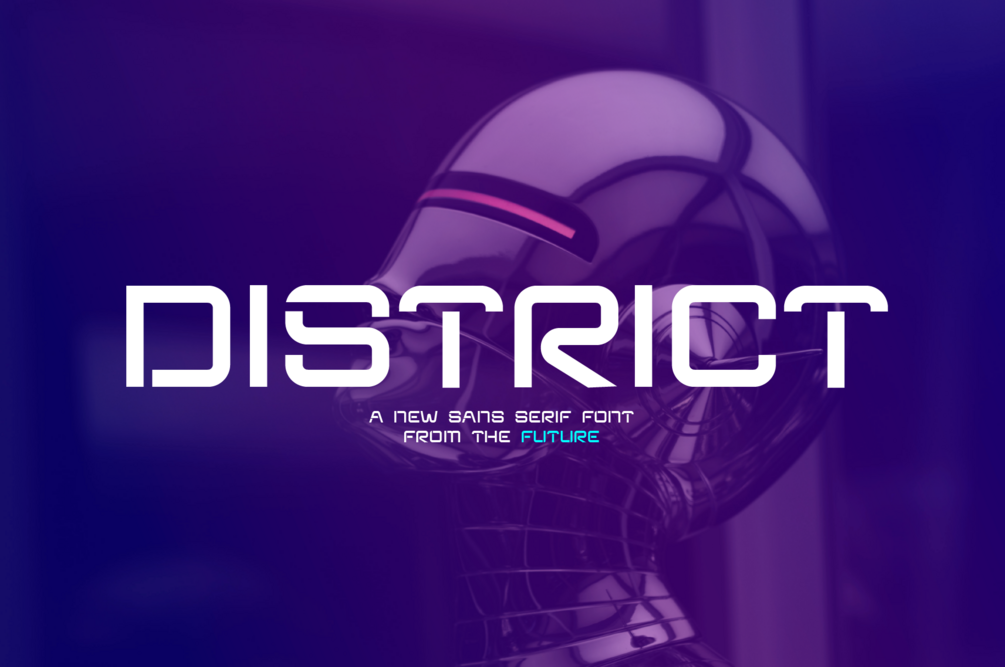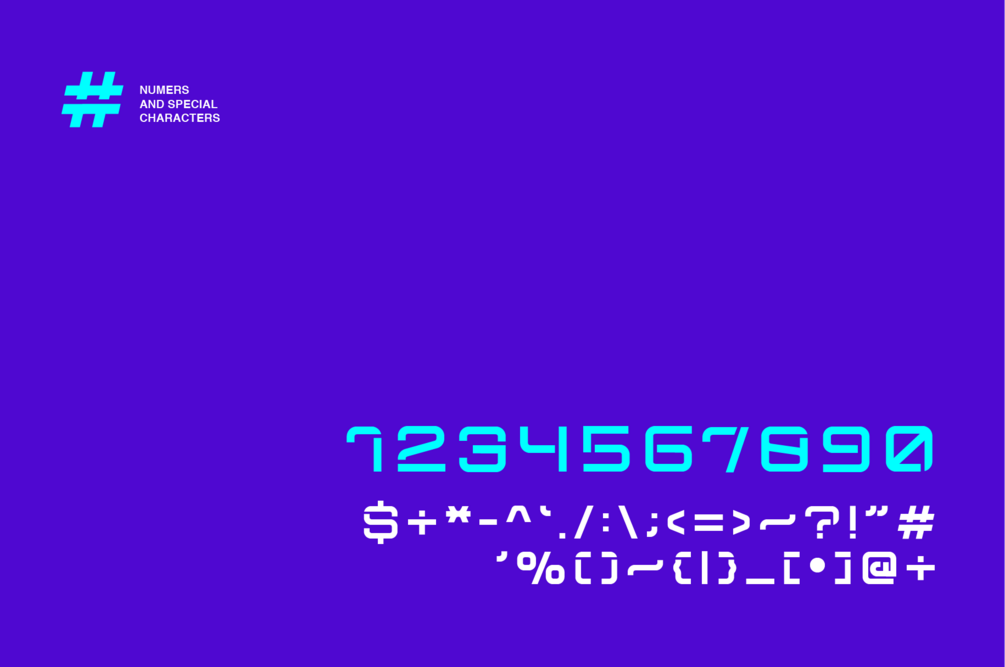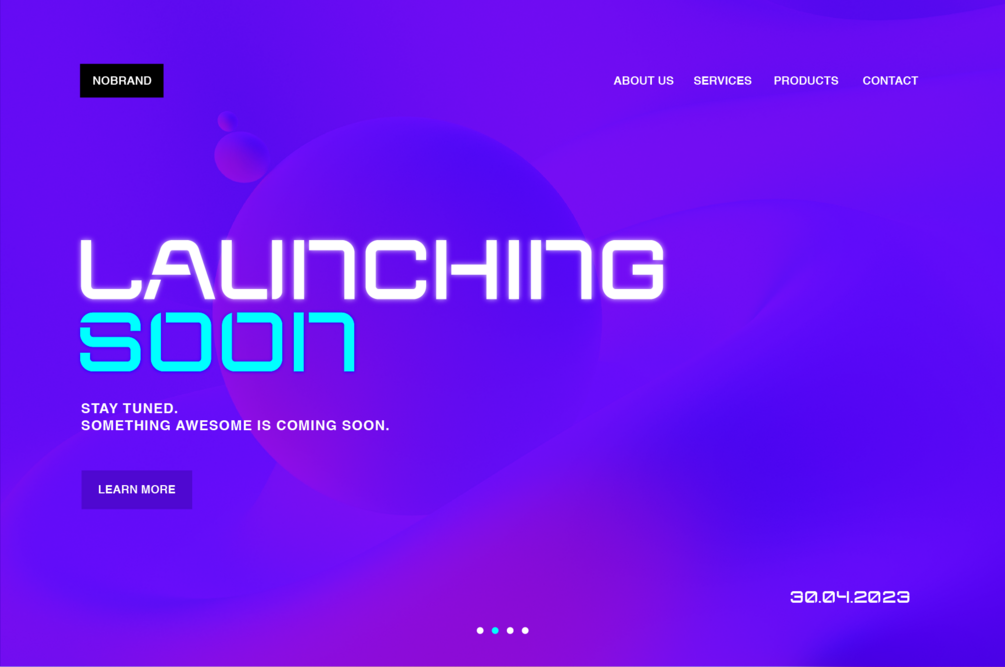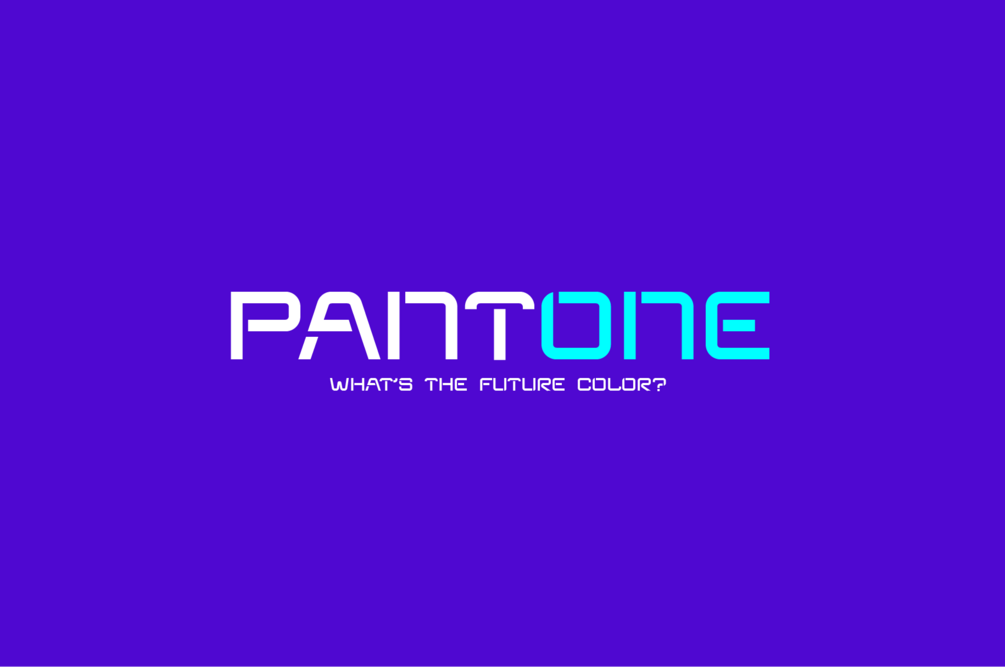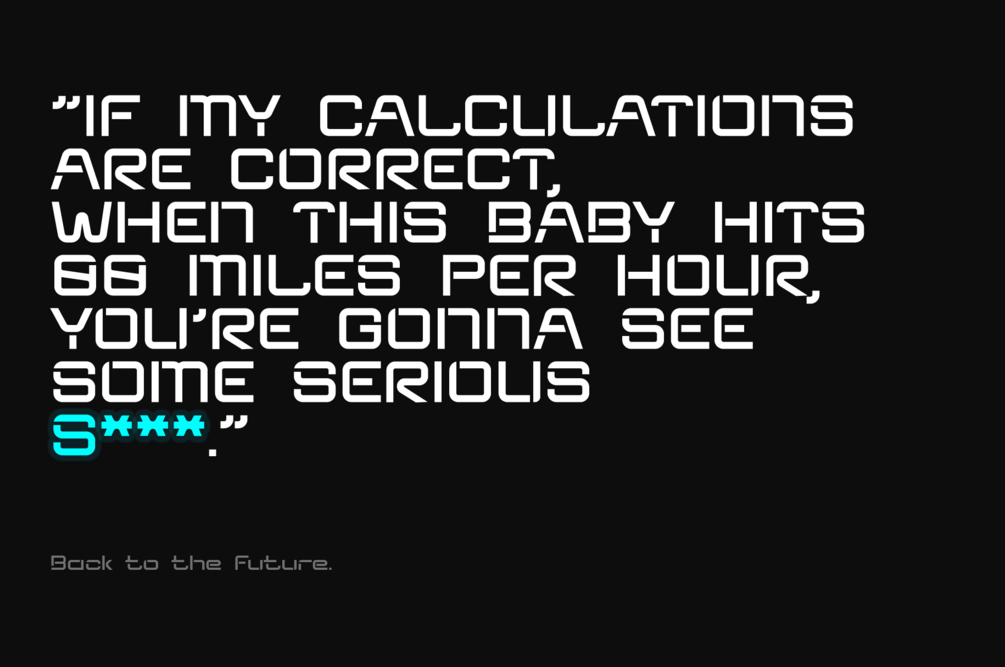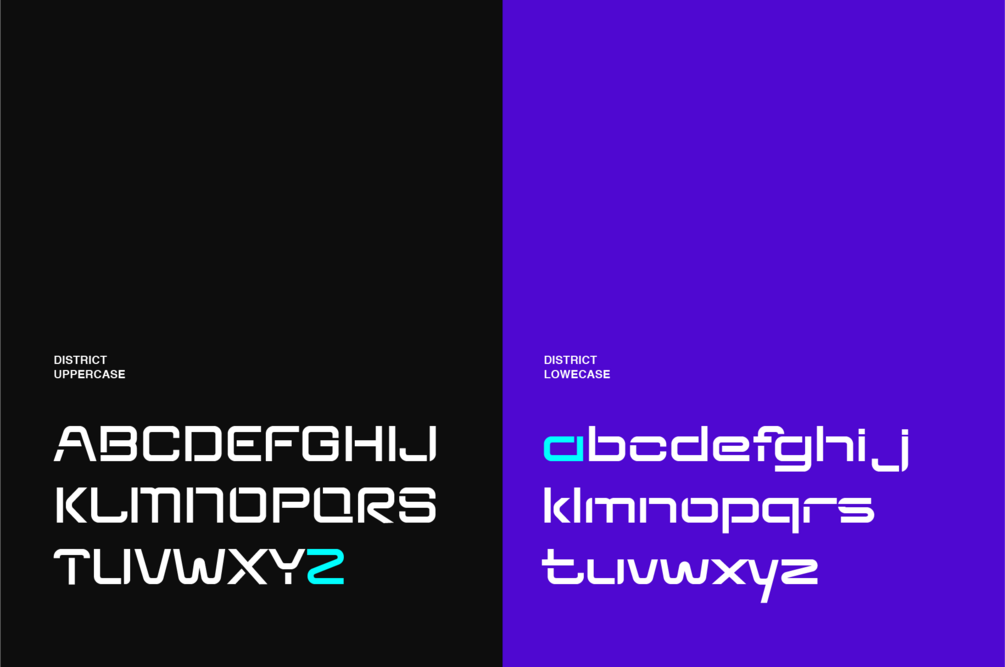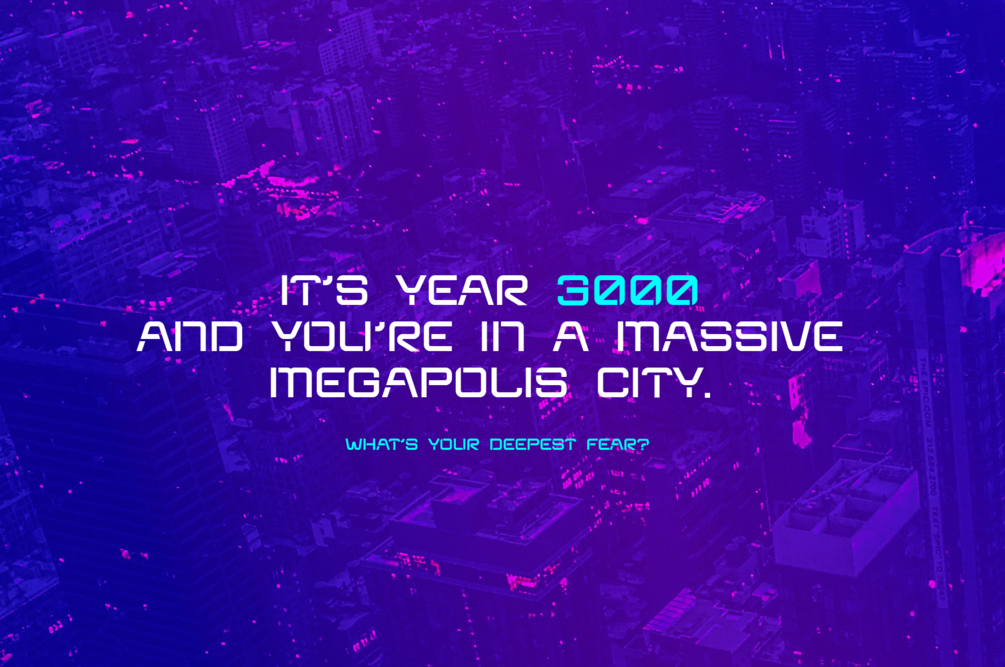
District - Futuristic Sans
District is a futuristic font stencil sans serif typeface. This minimalistic font is ideal for sci-fi movies, e-ports logos, video games, technology gadgets, branding, posters, presentations, packaging, and more. Thanks to its dynamic nature, District is very legible. If you want to create some killer designs that look like they're from the year 3000, then this typeface is perfect for you.